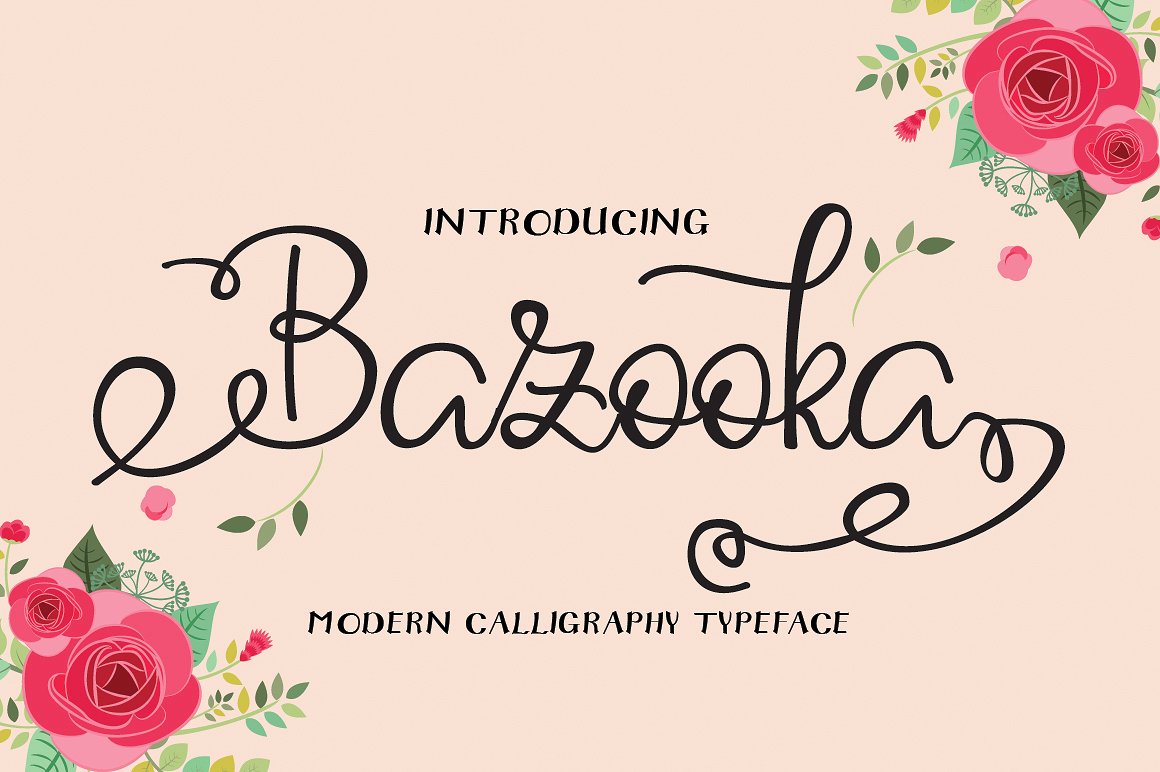
Bazooka Script Font
Bazooka is a font bold, so, brush script that is beautiful and unique, it is a model of modern calligraphy typefaces, in combination with a calligraphy writing style. The Features of this fonts is;
| Classification: | Calligraphy Fonts, Handwritten Fonts, Script Fonts |